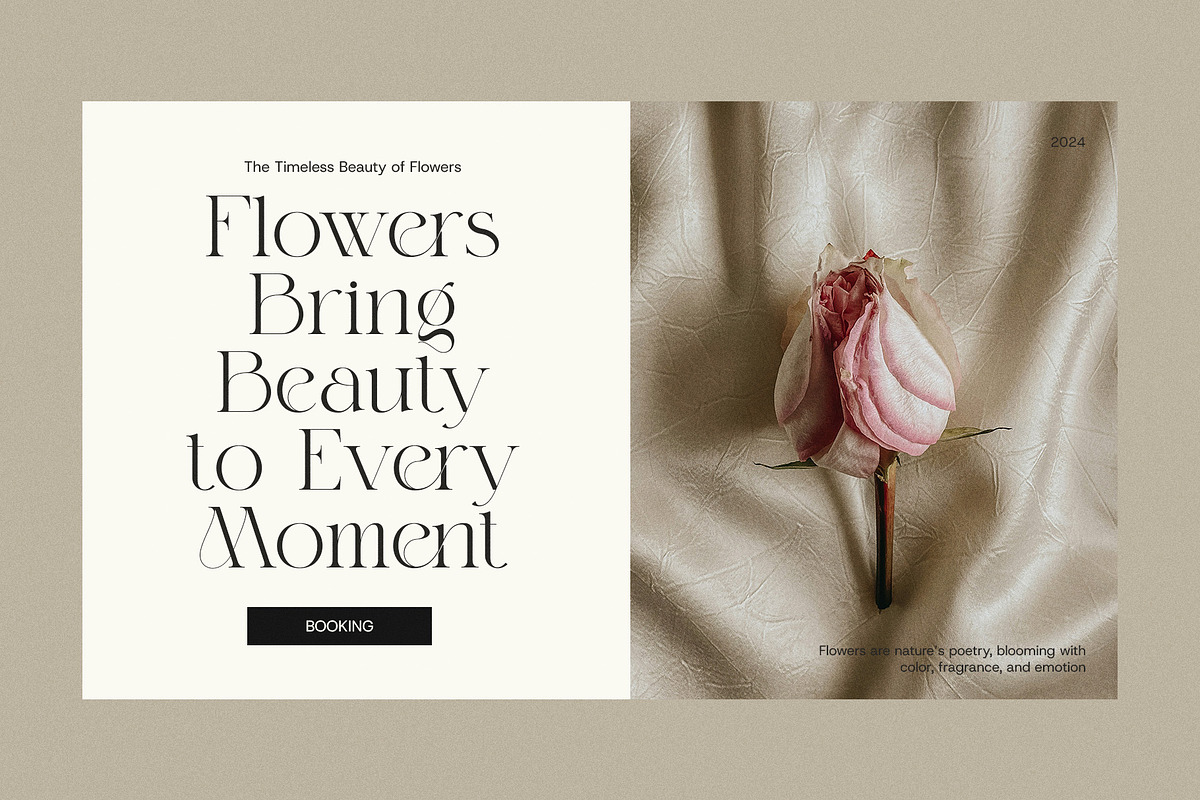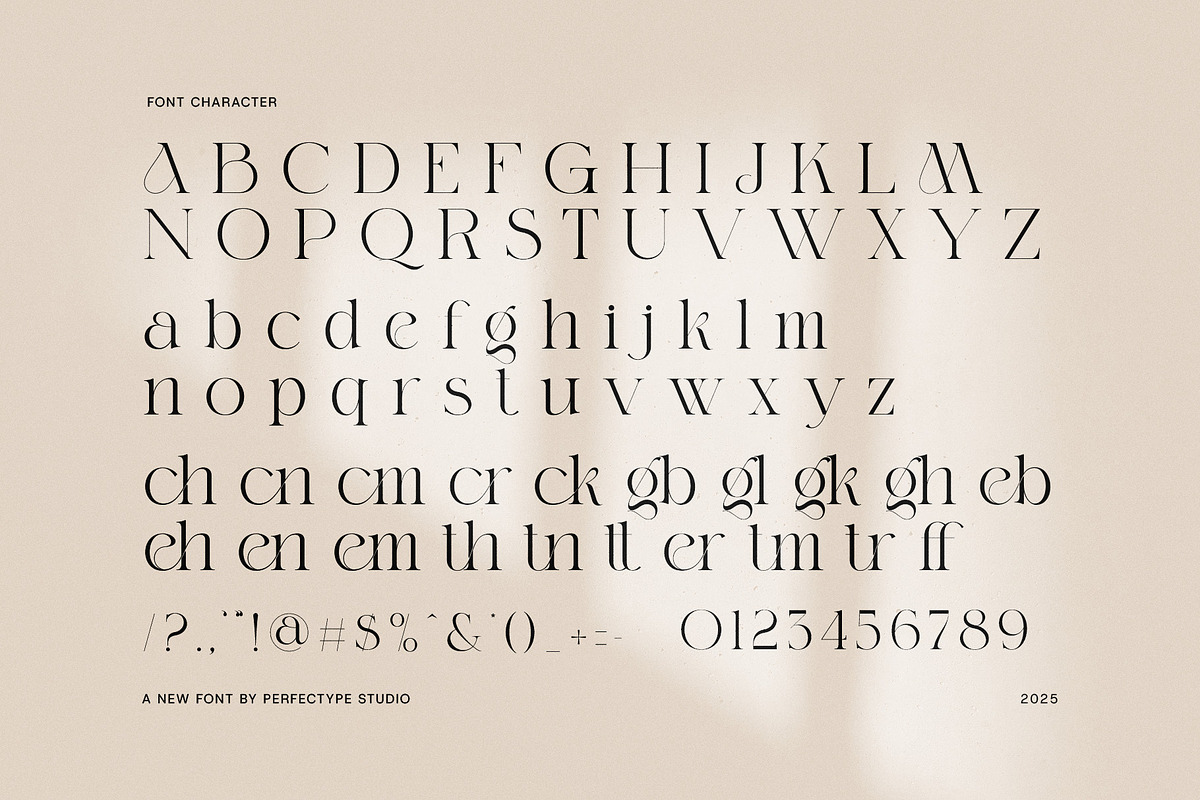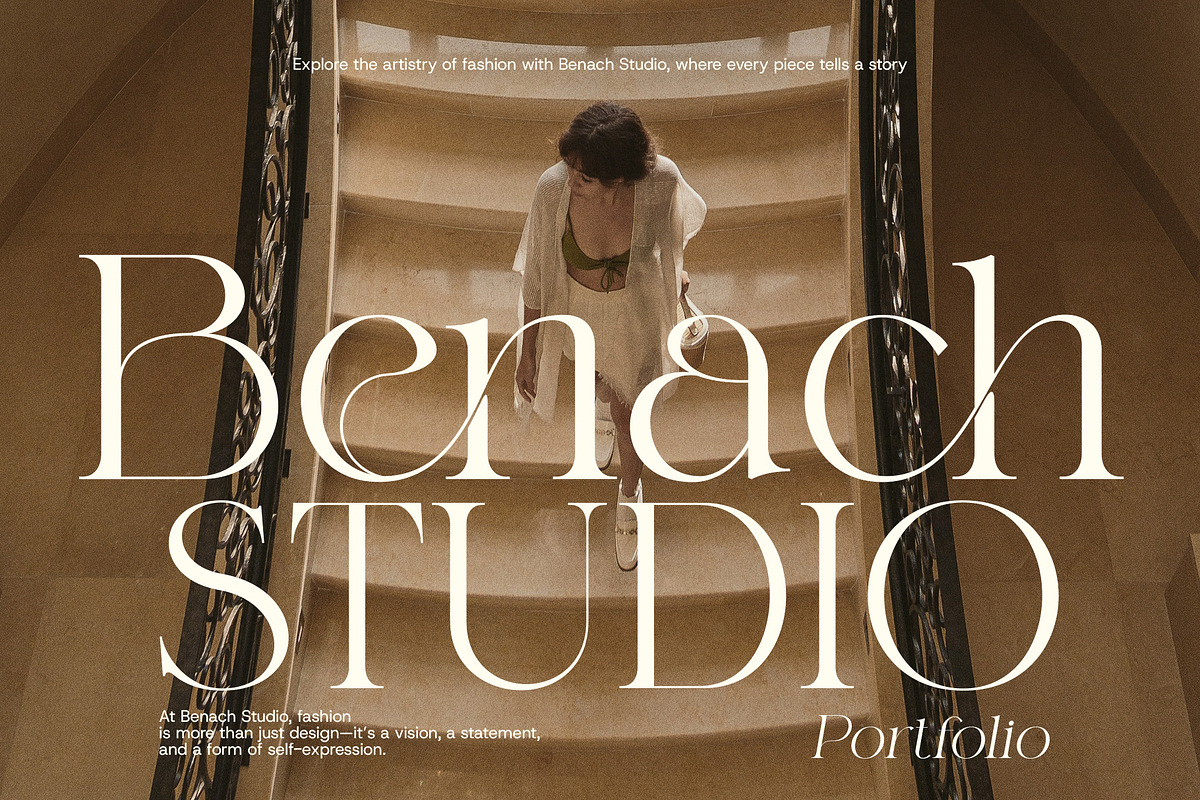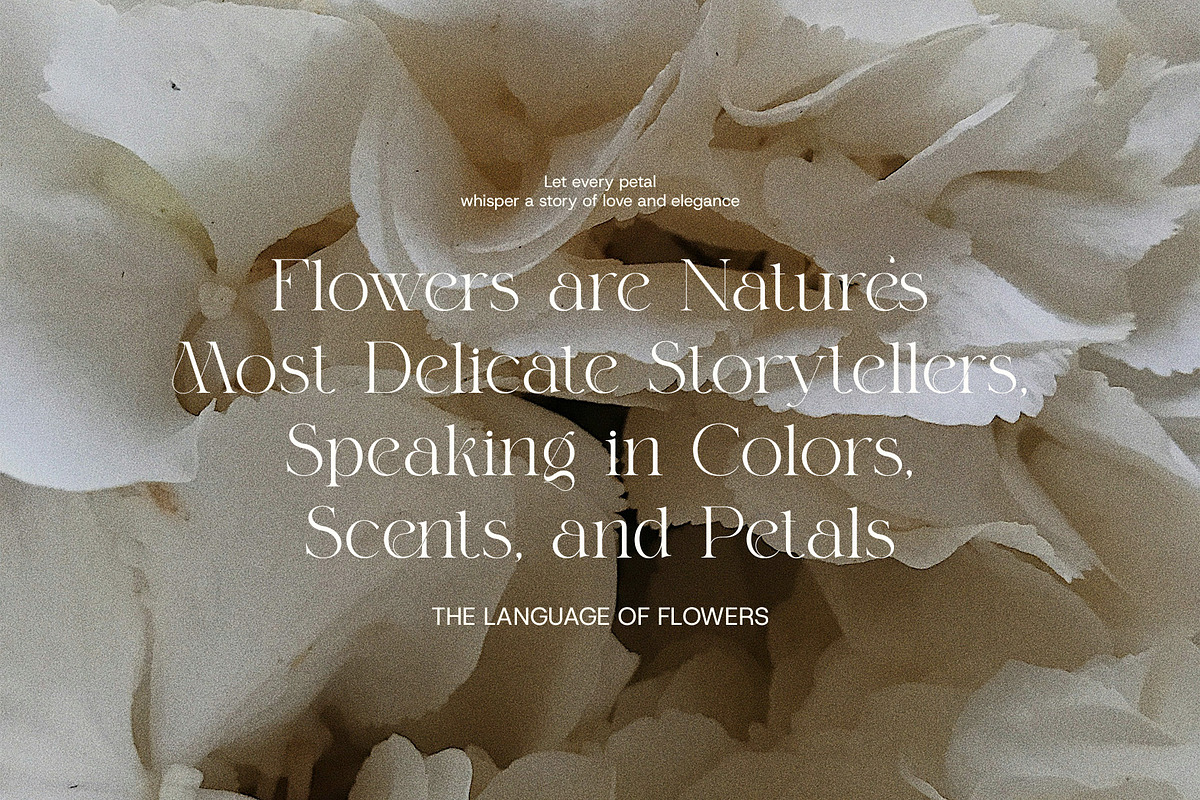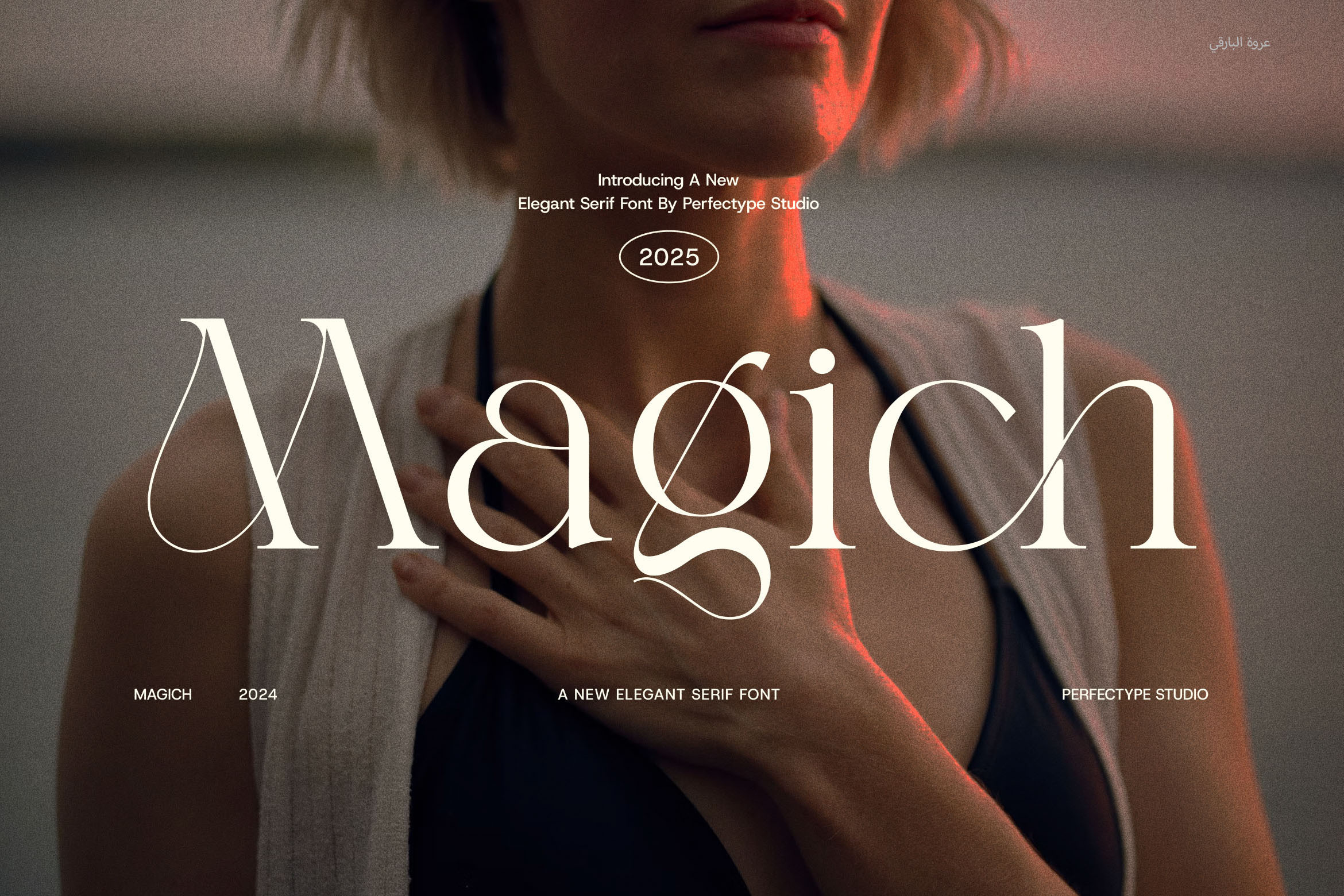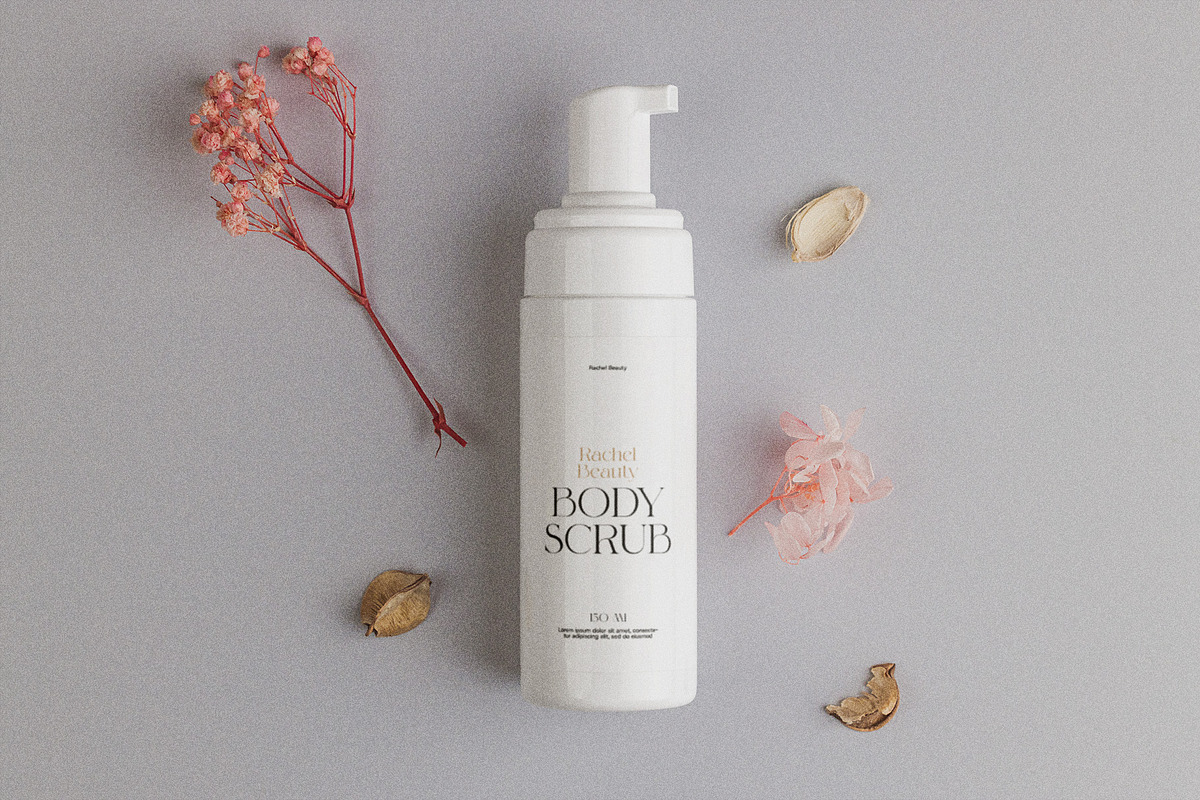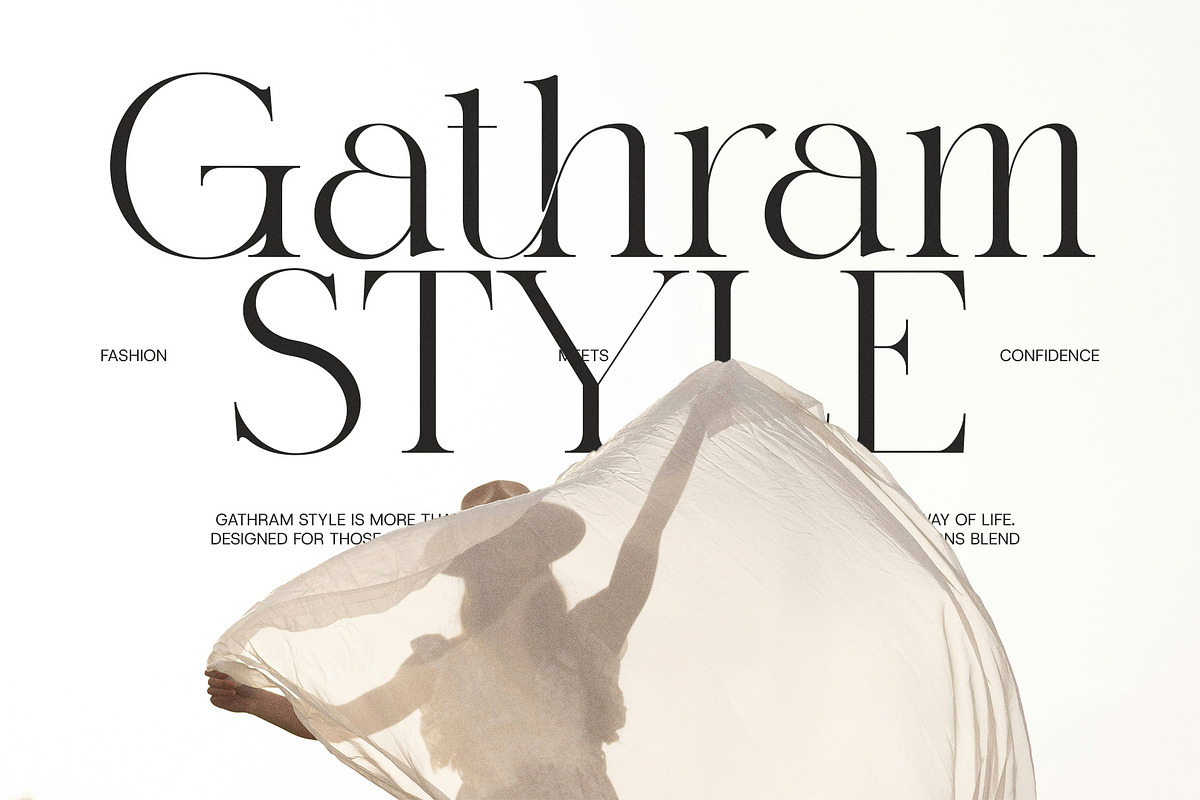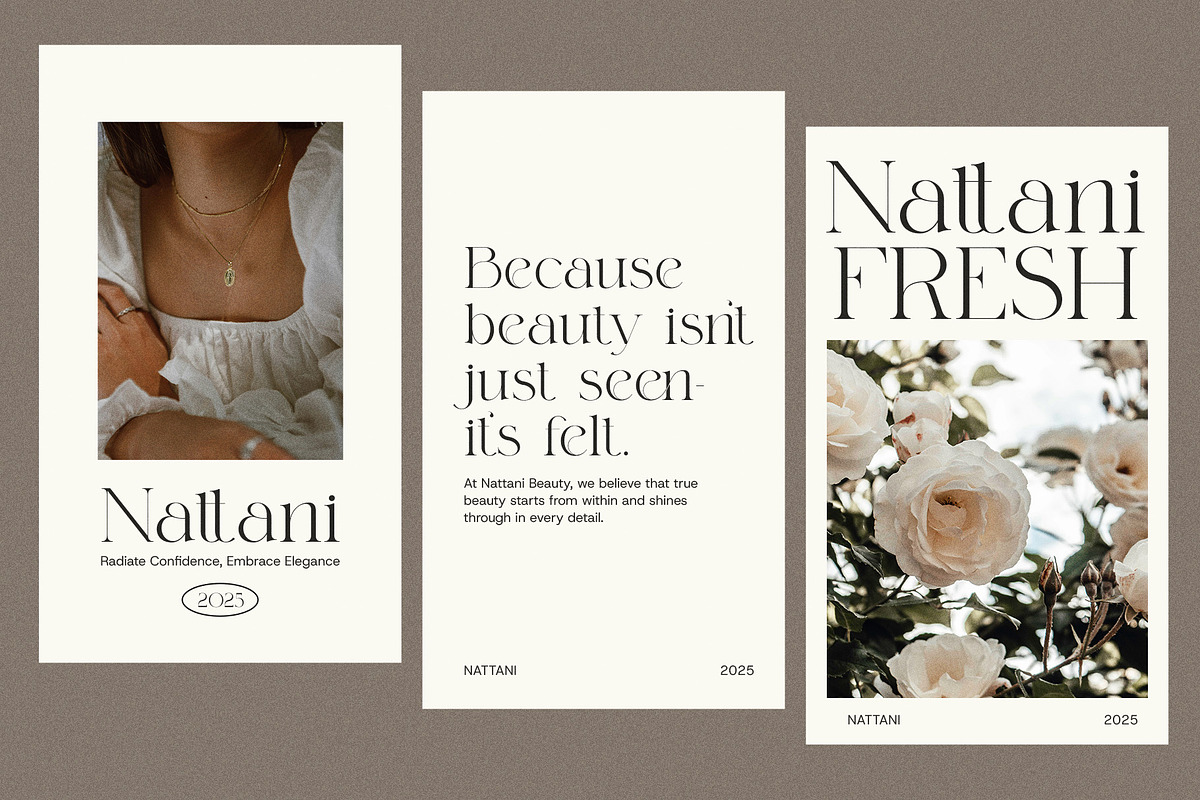
Magich Elegant Serif Font
Magich Elegant Serif Font is a stylish serif typeface that captures the essence of sophistication with a touch of creative magic. Designed for designers who value precision and personality, Magich combines modern elegance with artistic detail, resulting in a font that is as functional as it is visually captivating.
What sets Magich apart is its distinctive blend of sharp serifs, smooth curves, and gracefully designed ligatures. Each character is thoughtfully crafted to ensure balance, rhythm, and a sense of luxury—making it perfect for projects that require a high-end, editorial feel with a modern twist.
Ideal for a wide range of creative applications, Magich is especially well-suited for:
Logotypes and brand identities
Luxury packaging and labels
Fashion magazines and editorial layouts
Boutique websites and landing pages
Event invitations and menus
Social media and digital marketing assets
The font includes a full set of uppercase and lowercase letters, multilingual support, numerals, punctuation, and a rich variety of stylistic alternates and ligatures. These features give you the flexibility to create stunning typographic designs that feel custom-made, whether you’re crafting a brand logo or designing an elegant headline.
Magich shines in both print and digital formats, offering clarity and charm at every size. It’s perfect for luxury brands, beauty products, wedding themes, and high-end marketing—bringing refinement and character to every word.
With its elegant structure and modern attitude, Magich Elegant Serif Font helps you create designs that are both visually powerful and aesthetically timeless. It’s not just a typeface—it’s a design statement that elevates your message and gives it an unforgettable presence.
If you're searching for a serif font that’s both chic and versatile, Magich is your perfect creative companion. Let your typography speak with confidence, charm, and a little touch of magic.